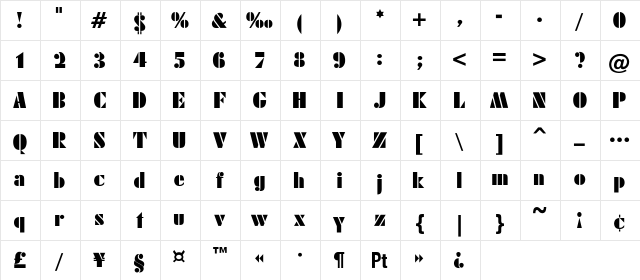
Burnette Heavy Regular Regular
Design Context for Burnette Heavy Regular Typeface
Burnette Heavy Regular is a composed and adaptable typeface that performs quietly and consistently across a wide range of design contexts.